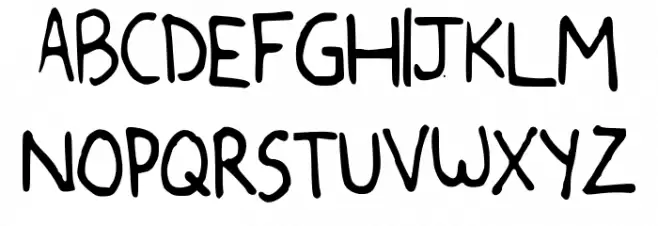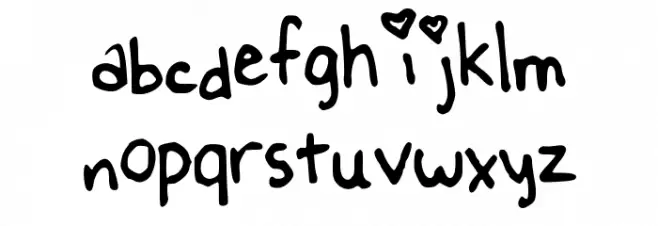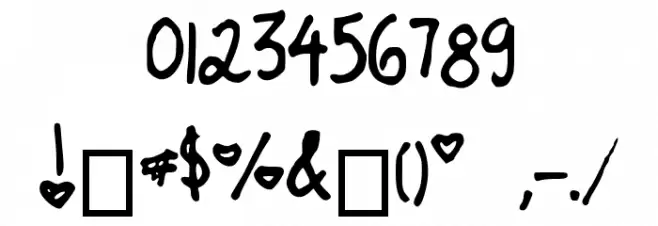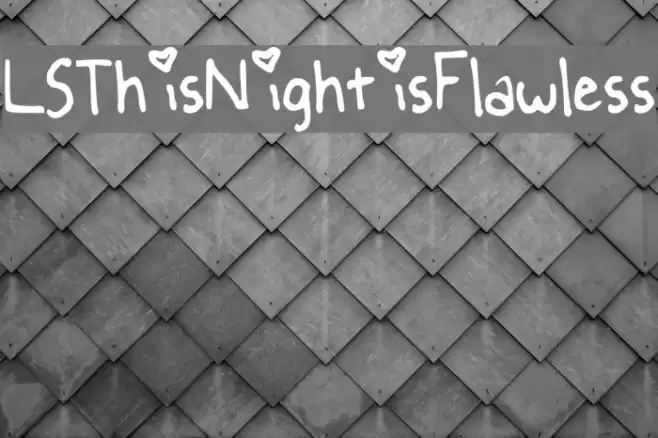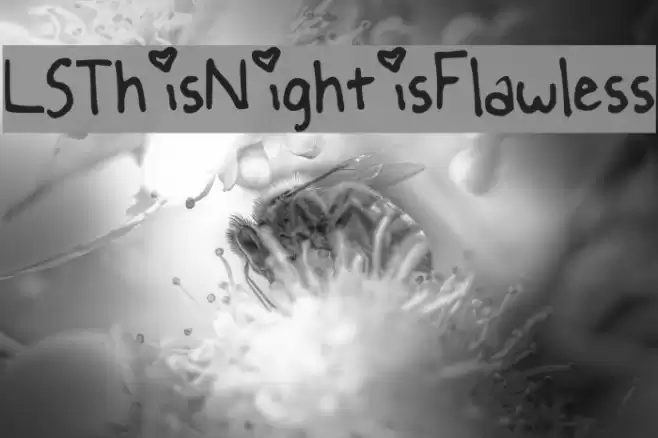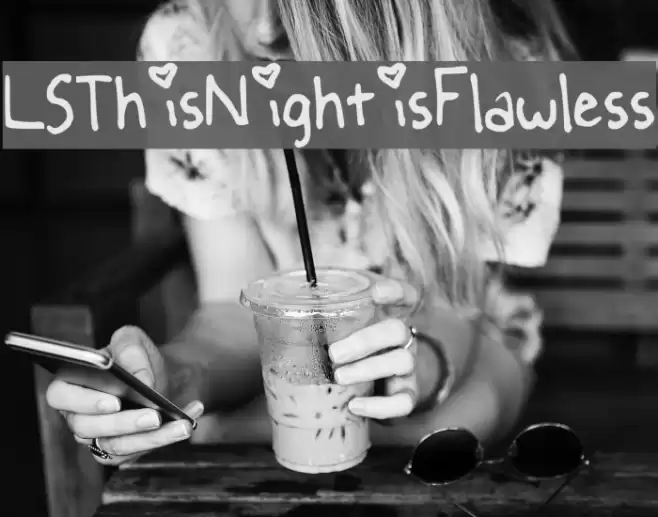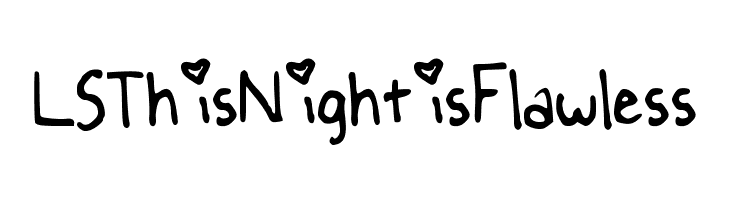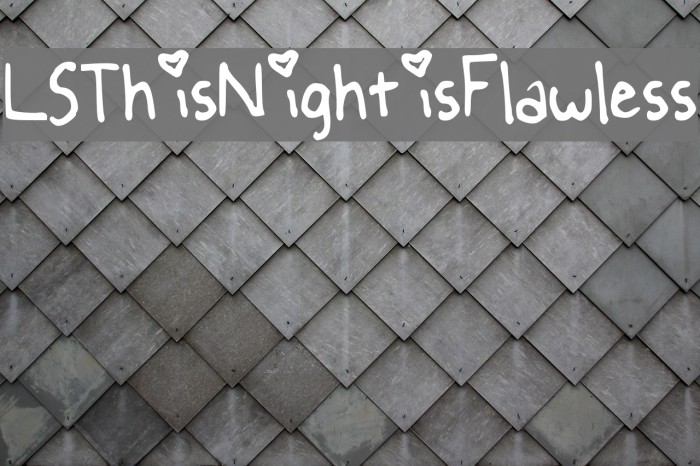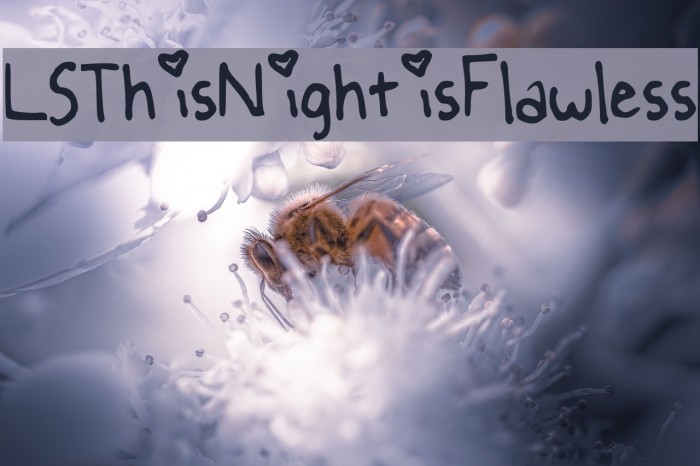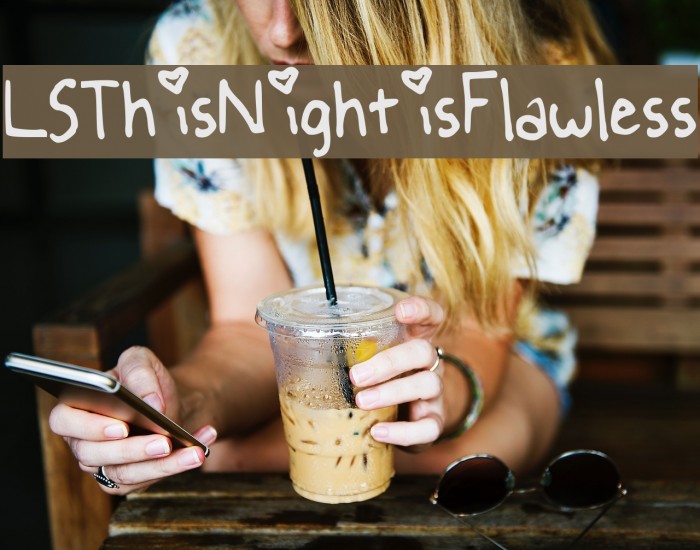
LSThisNightisFlawless
This playful and whimsical font features a handwritten style with a casual and friendly appearance. The letters are slightly irregular, giving it a charming and informal feel. The uppercase and lowercase letters are distinct, with some characters incorporating small heart motifs, adding a unique and endearing touch. The numbers and special characters maintain the same playful style, making it versatile for various creative projects. The overall look is approachable and fun, perfect for designs that aim to convey warmth and personality.
A playful, handwritten font with charming irregularities and heart motifs.
- Proposed Projects: Ideal for greeting cards, children's books, playful branding, and social media graphics.
- Overall Style: Playful
- Use Case: Headlines, Logos, Informal Text